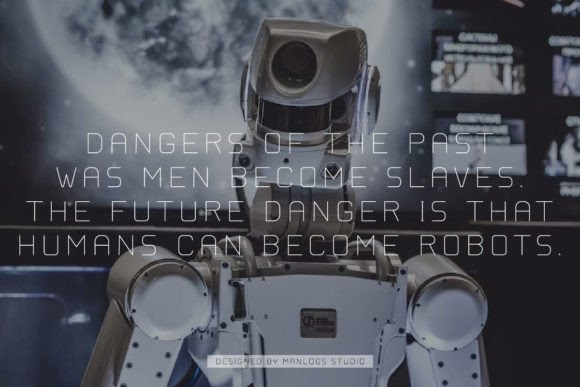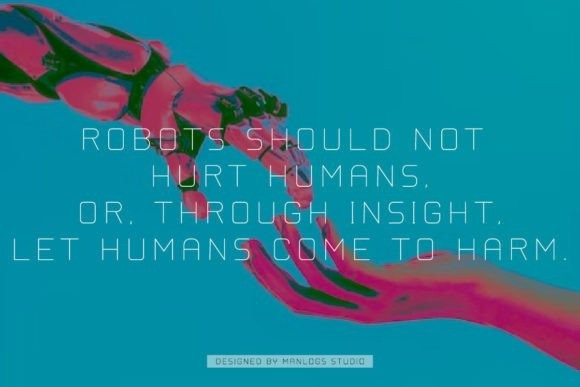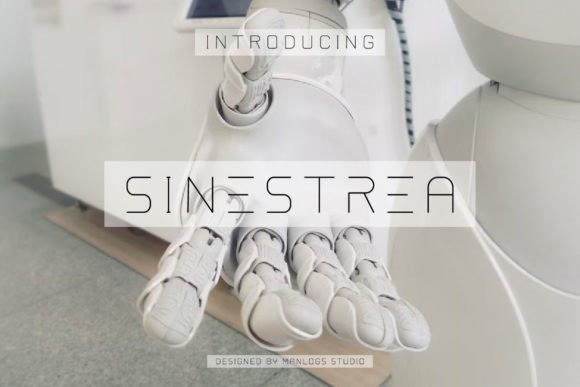
Sinestrea Font
Sinestrea Font is a cool and futuristic display font. This font is ideal for writing web designs, business cards, branding, t-shirts, or anything that needs a unique touch.